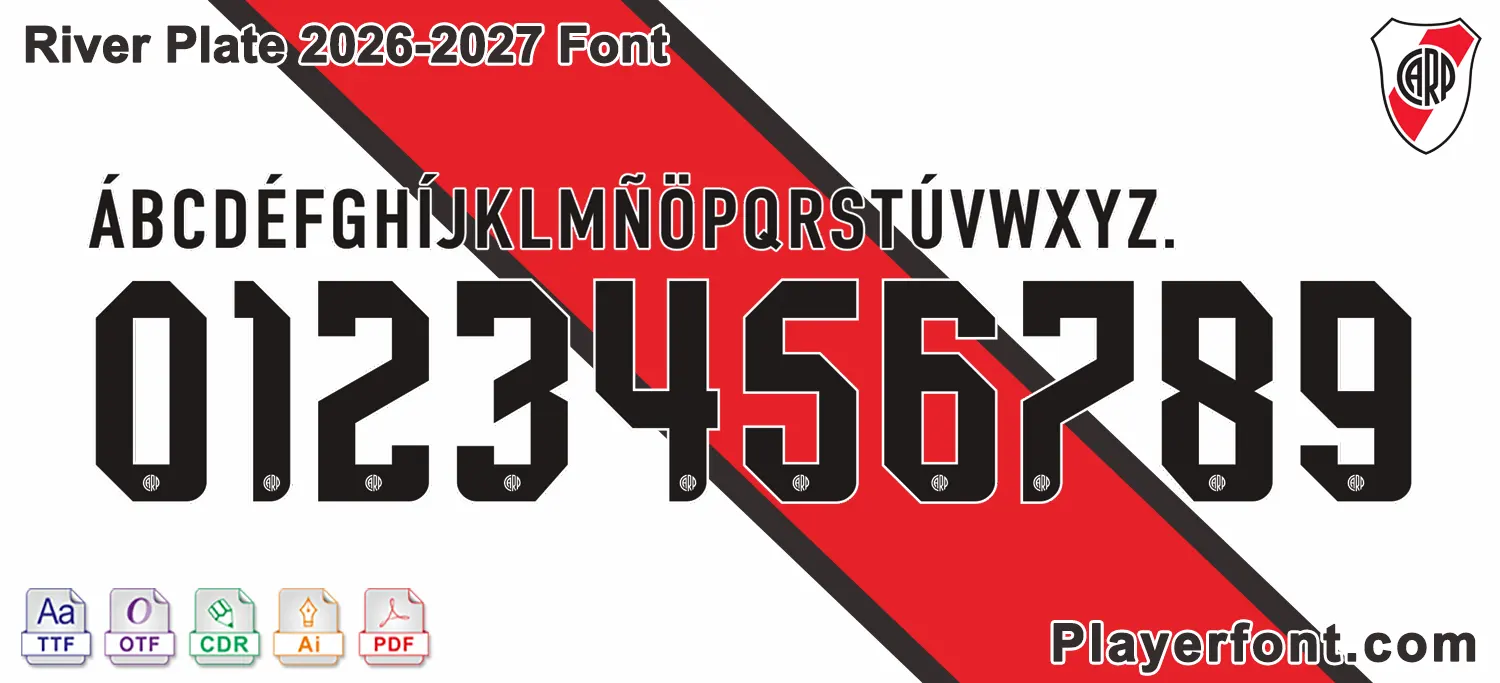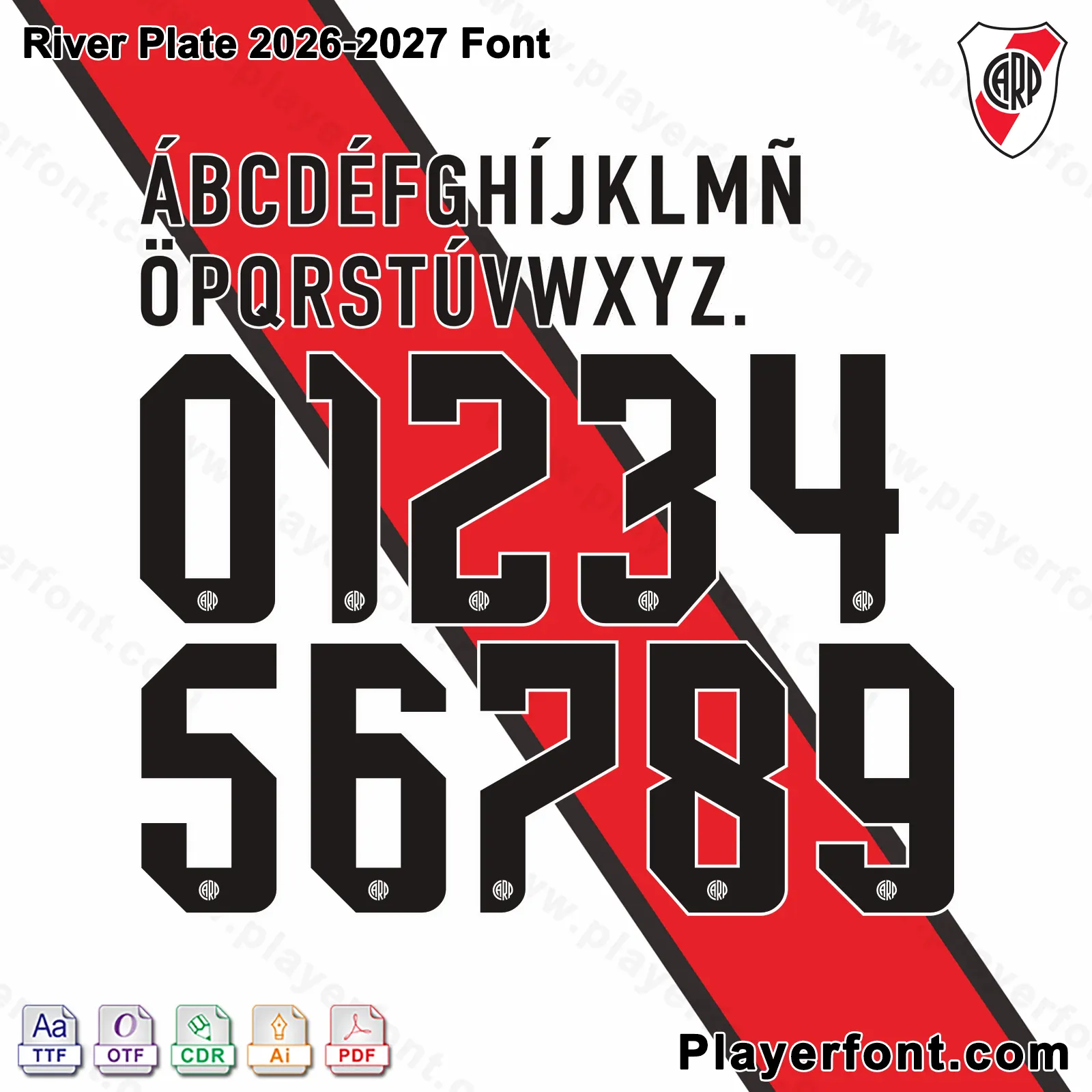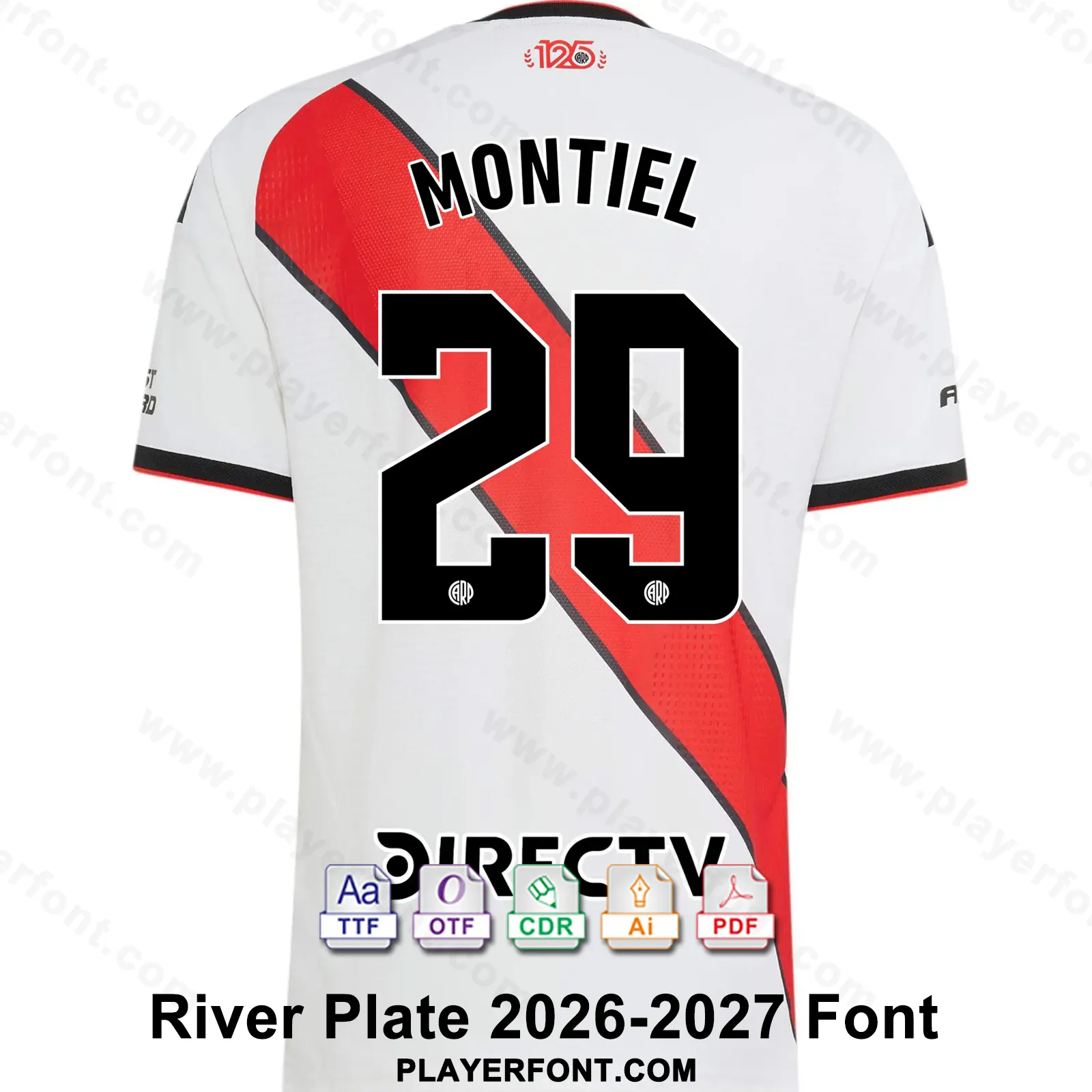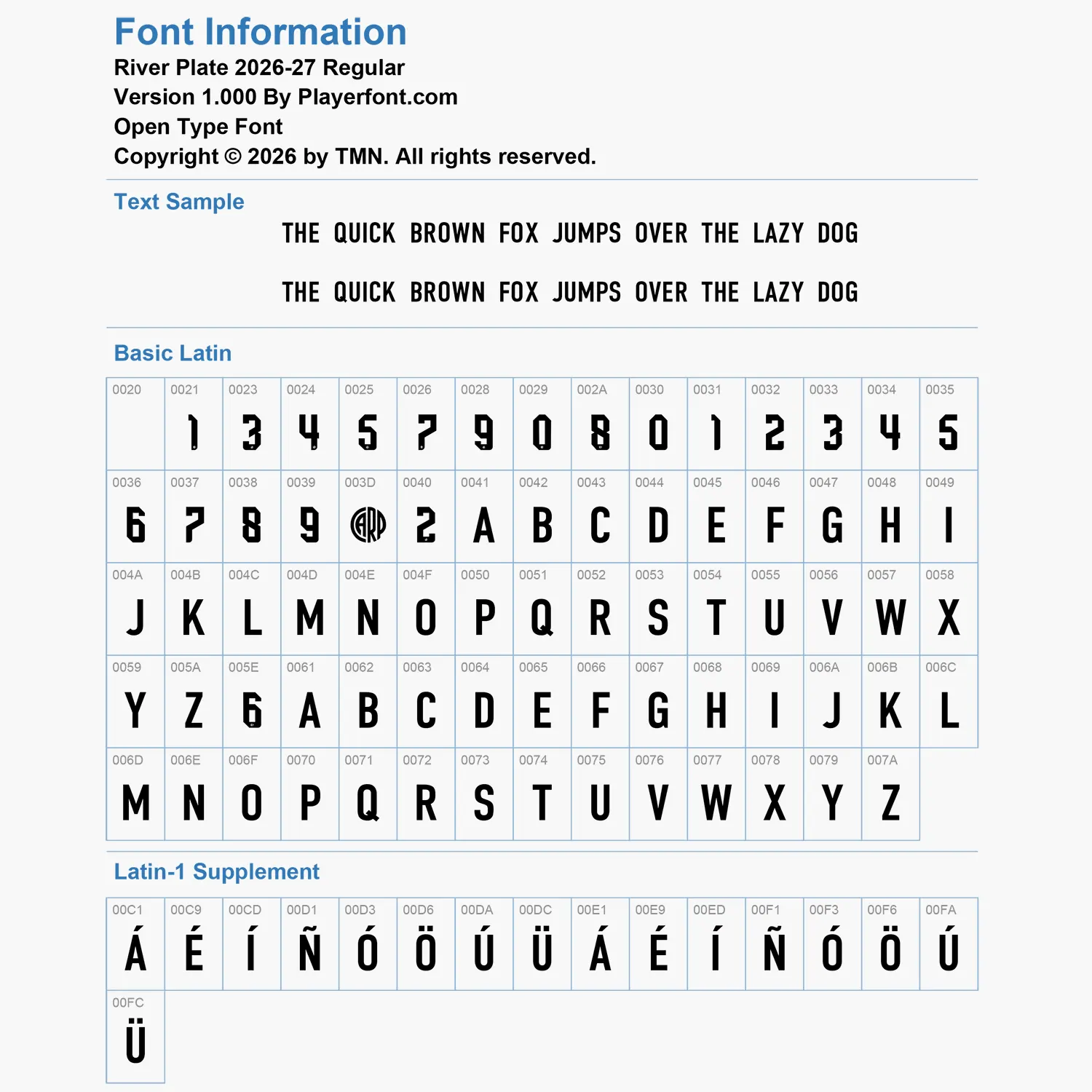
Elevate your sports jersey mockups, football custom graphics, and vector apparel printing projects with the high-quality River Plate 2026-2027 Font Download. Masterfully engineered by Playerfont.com, this high-performance typography set replicates the official-style numbers and distinct lettering featured on the pitch for Club Atlético River Plate’s home and away campaigns.
Key Typography Features & Character List:
This typography pack is fully optimized to support international player rosters and diverse numbering layouts:
- Sharp Athletic Block Layout: Contains a bold, tall condensed uppercase character set, geometric block letters, numbers (0-9), hyphens, and periods.
- Advanced International Accent Support: Includes an expansive set of diacritics spanning Latin-1 Supplement (such as Á, É, Í, Ñ, Ó, Ö, Ú, and Ü) ensuring flawless rendering for global football stars and Spanish naming requirements (such as Montiel, etc.).
- Authentic Visual Details: The jersey numbers feature solid black octagonal geometric styling with clean angular corner cuts, subtly embedded with the official circular CARP (Club Atlético River Plate) crest outline centered at the base of each digit.
| Design Feature | Solid Black Octagonal Geometric Structure with CARP Crest Base |